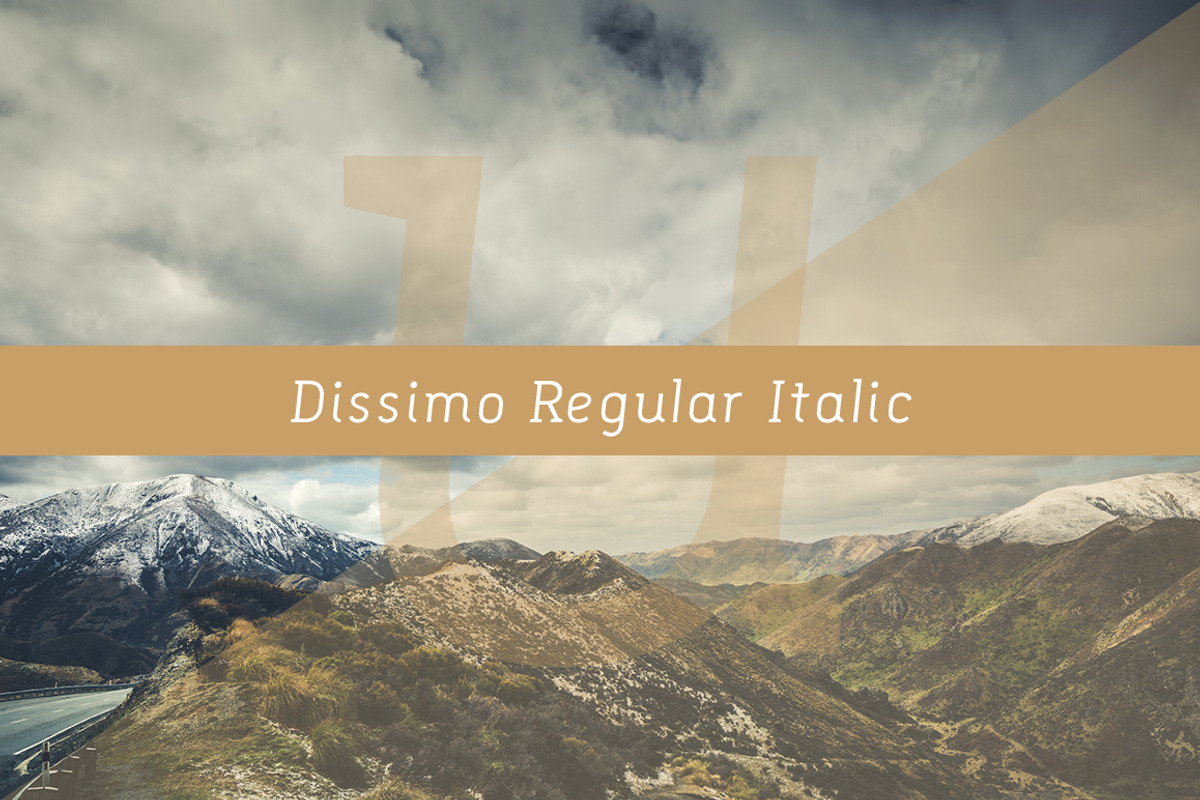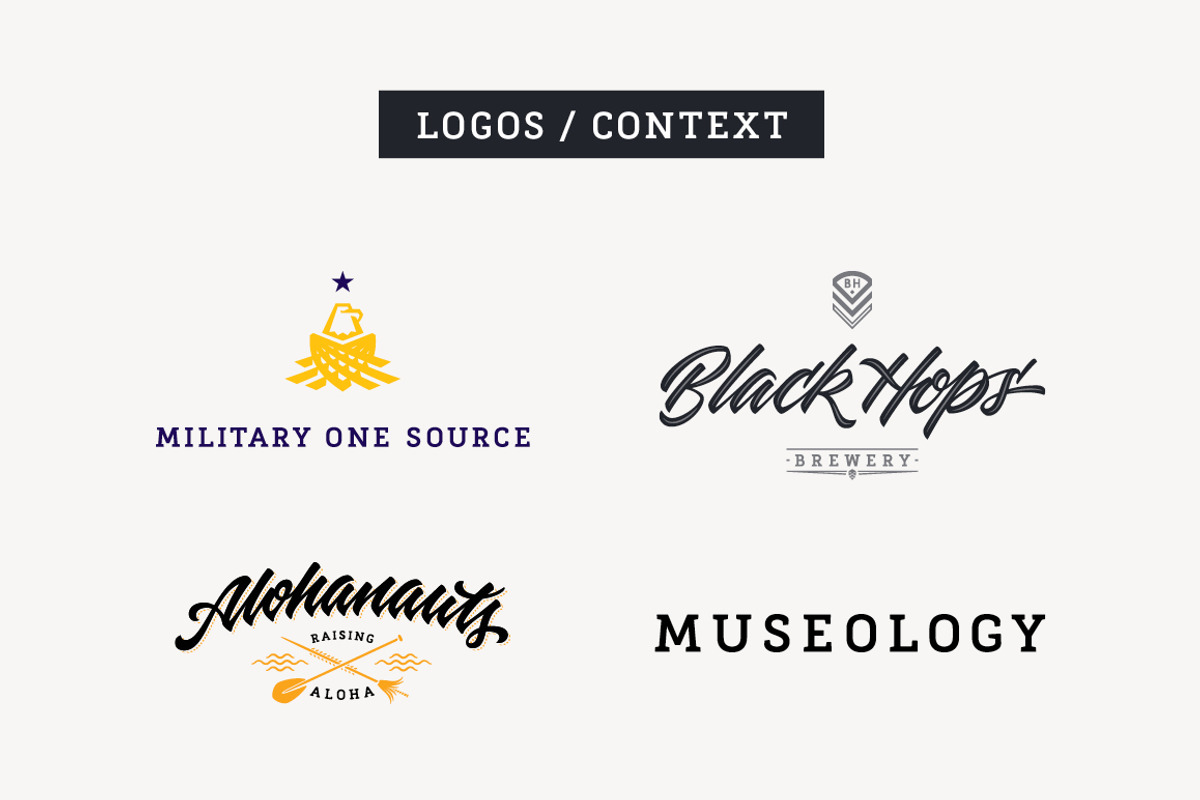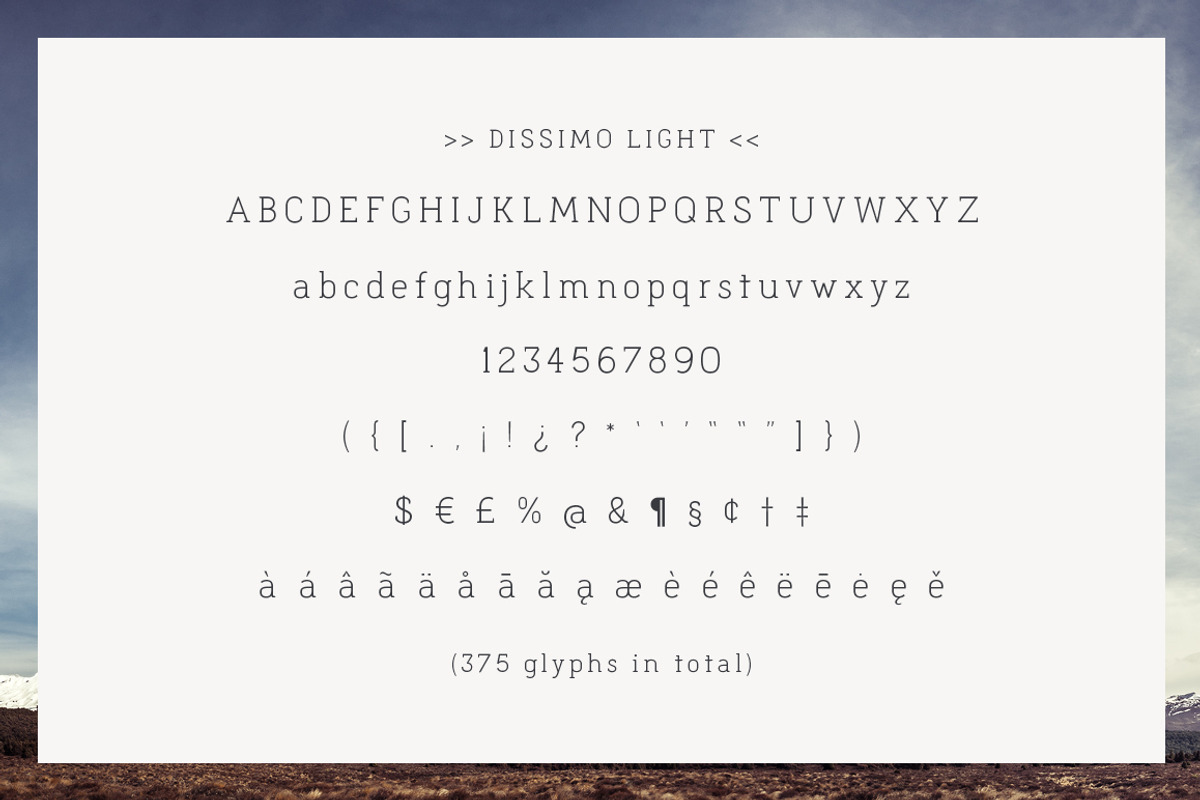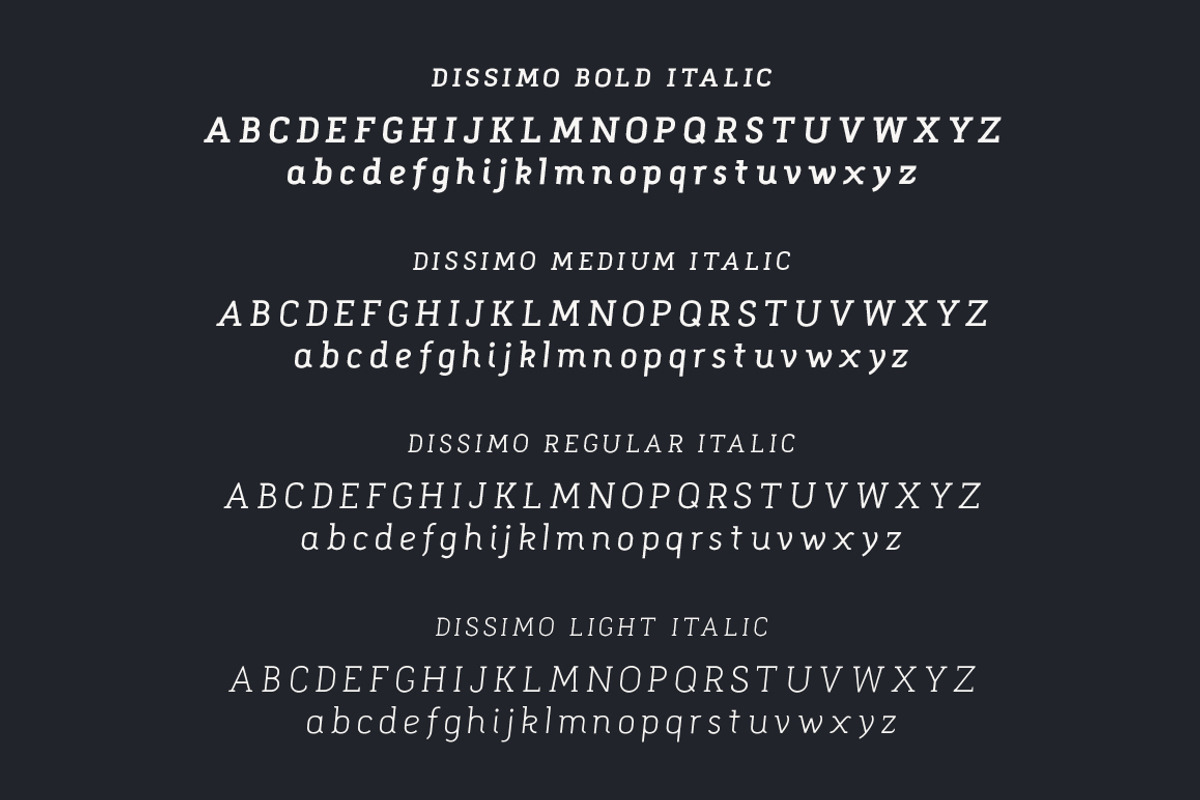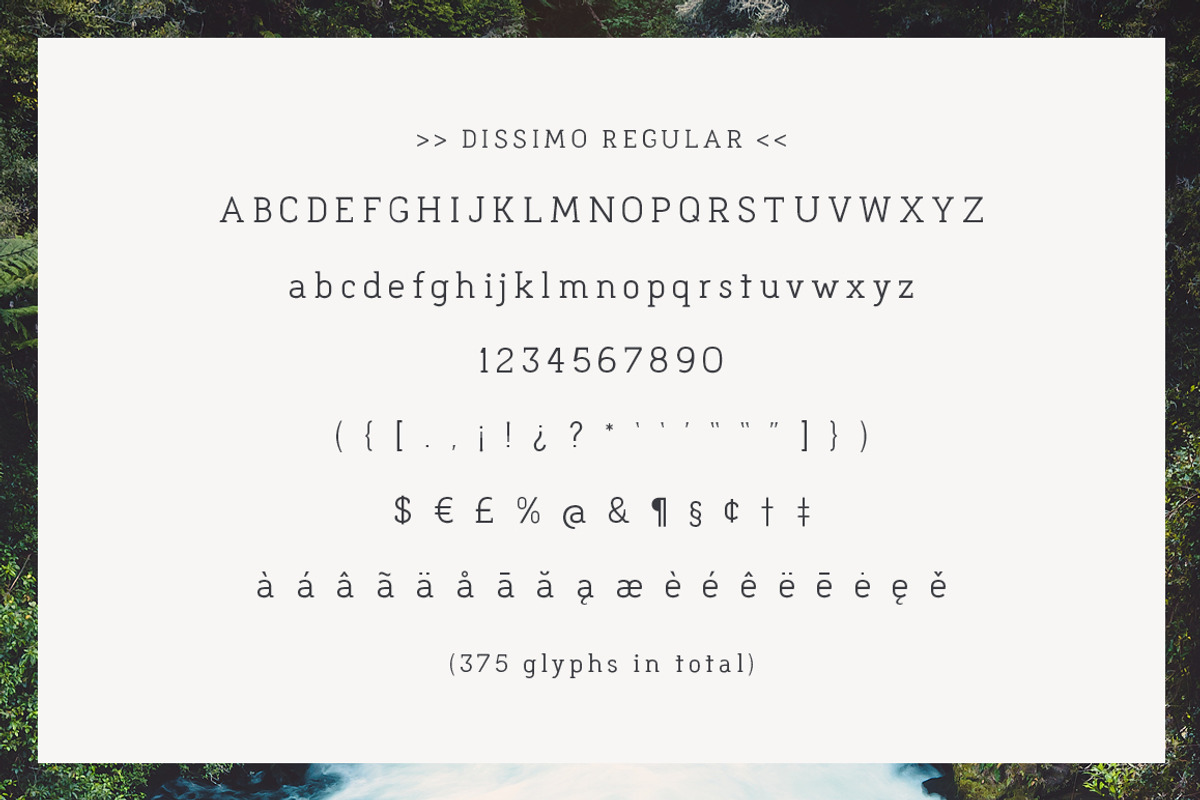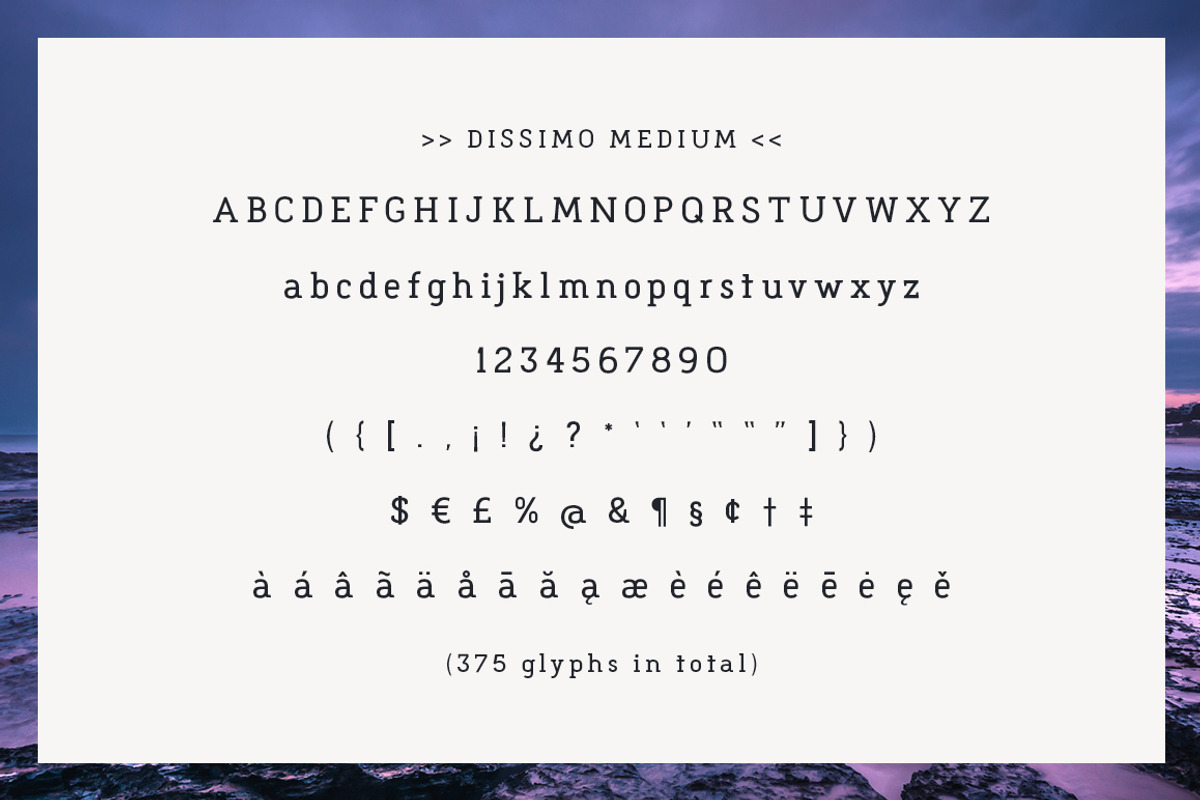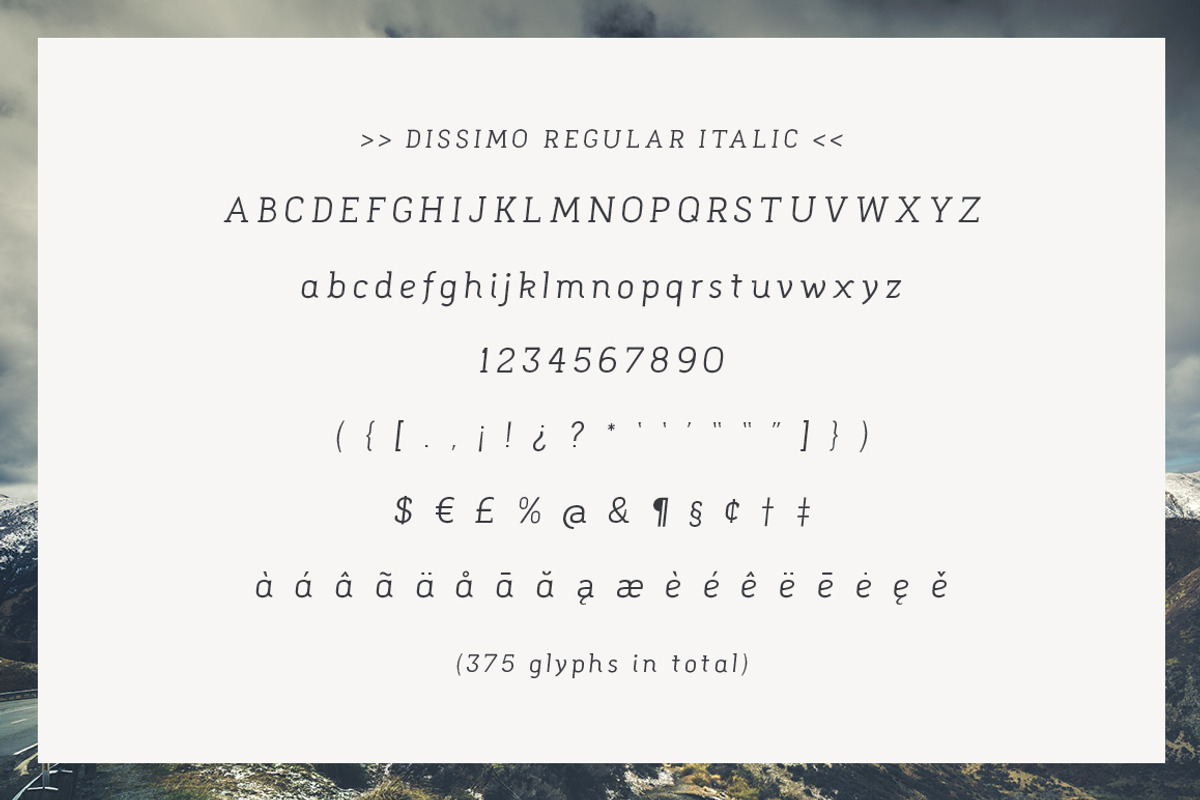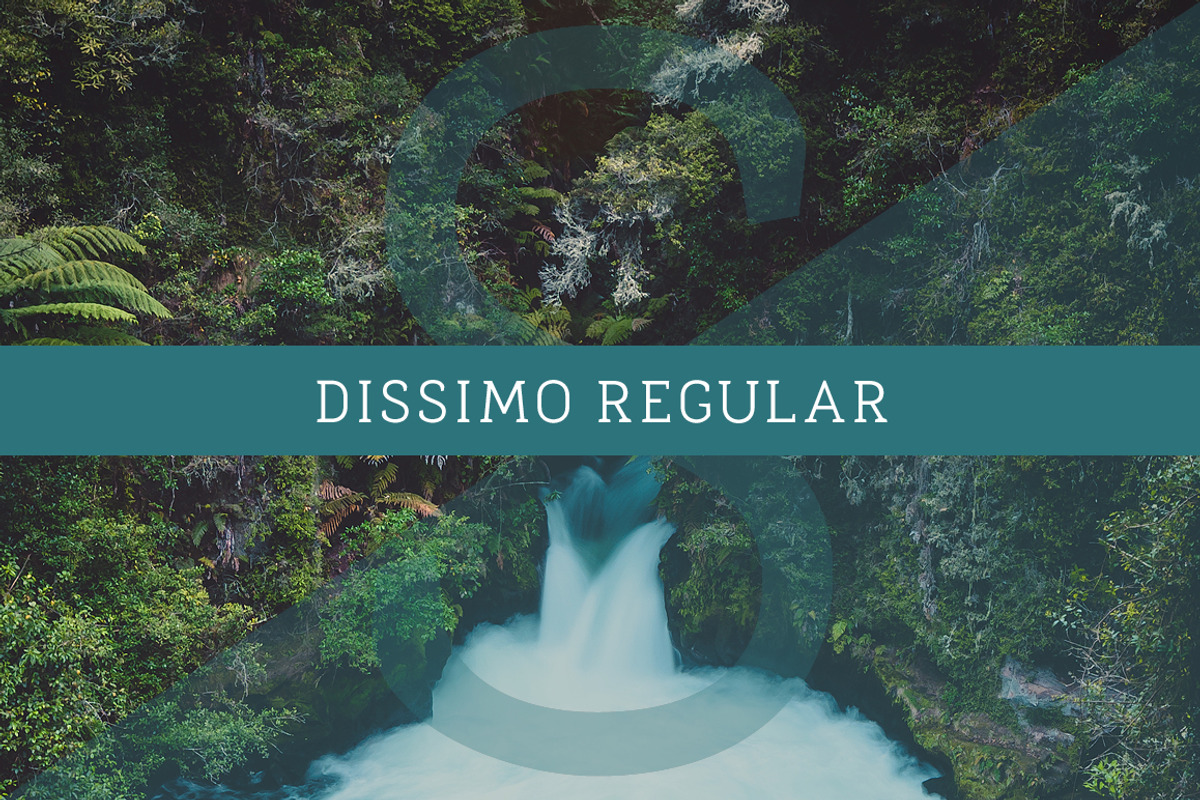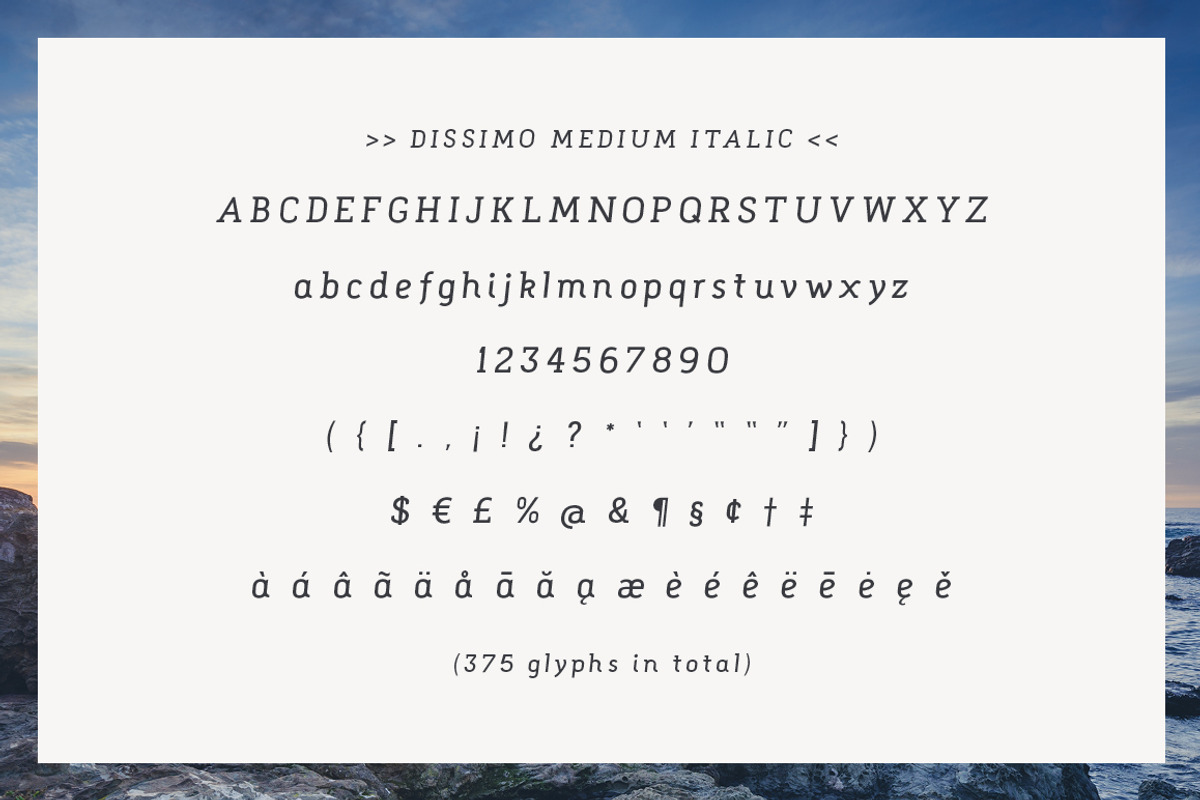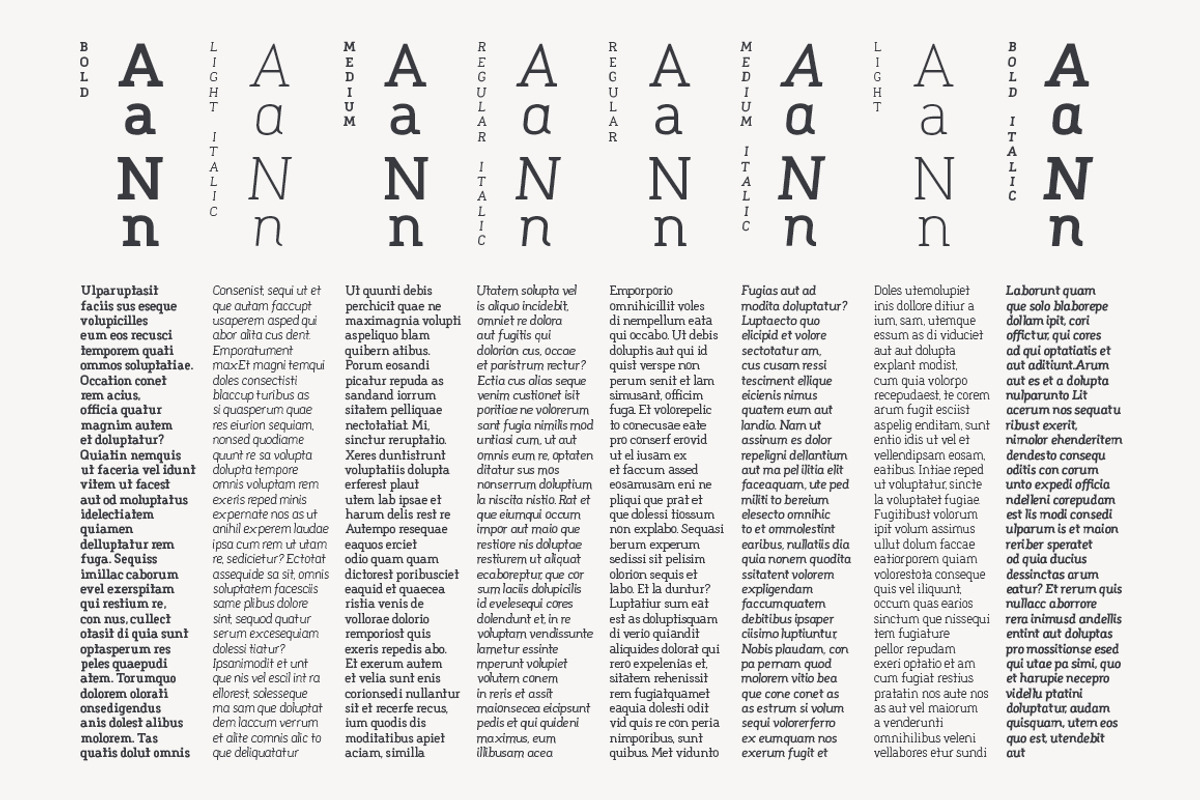
Dissimo Font Family (8 fonts)
A font family of 8 sexy slabs that has been crafted with love. Perfect as a display font or for editorial layout. This font was crafted from the bones of a logotype making it also a great supporting font for logos and their descriptives/ tag lines (as seen in the presentation slides).
Family includes: Bold, Bold Italic, Medium, Medium Italic, Regular, Regular Italic, Light & Light Italic.